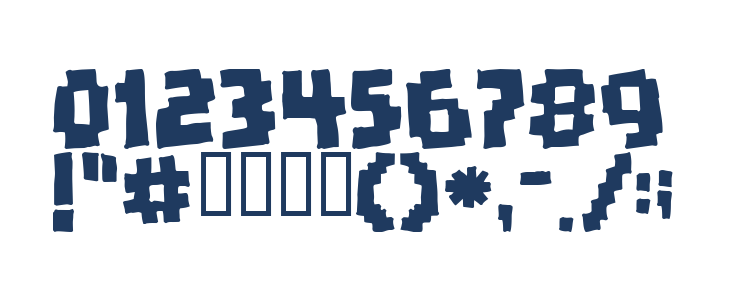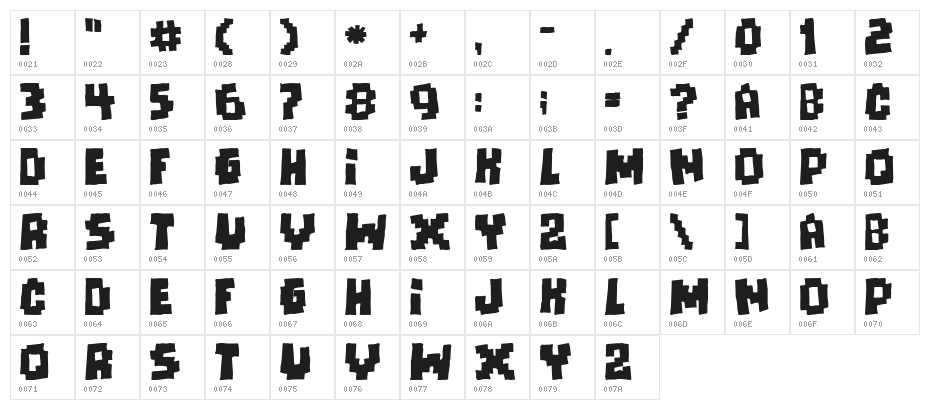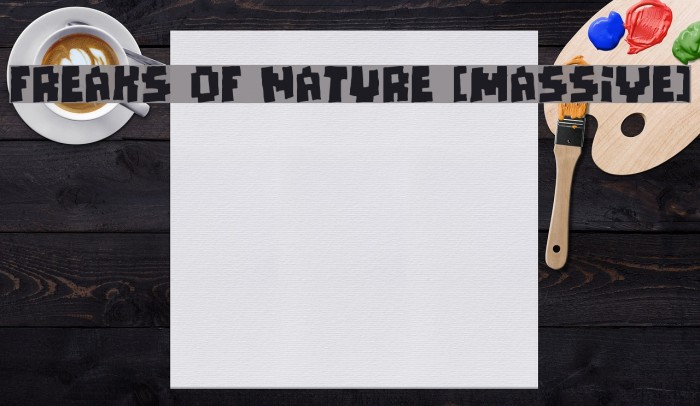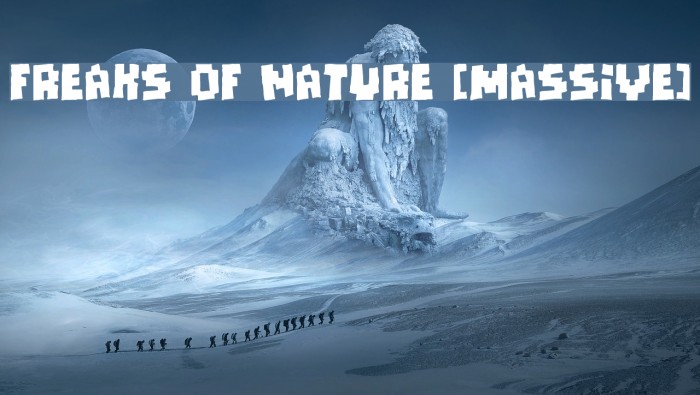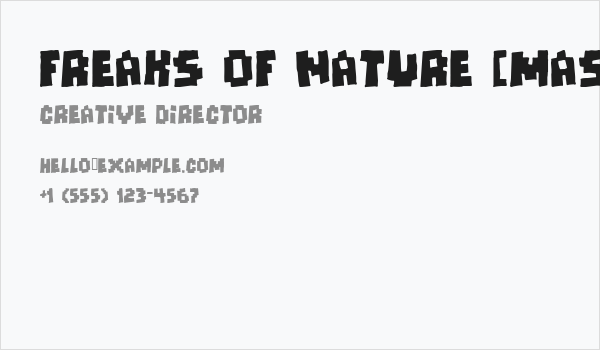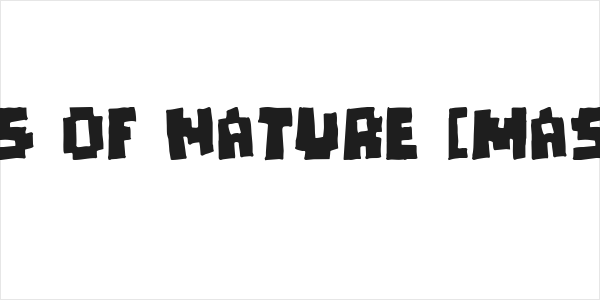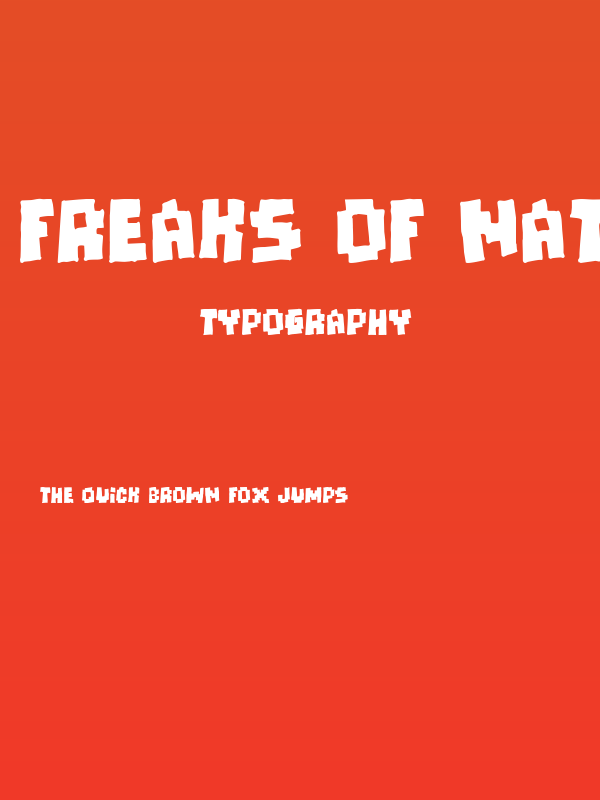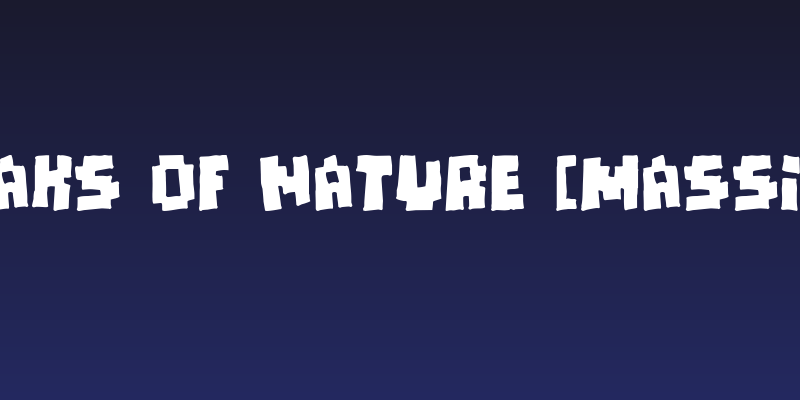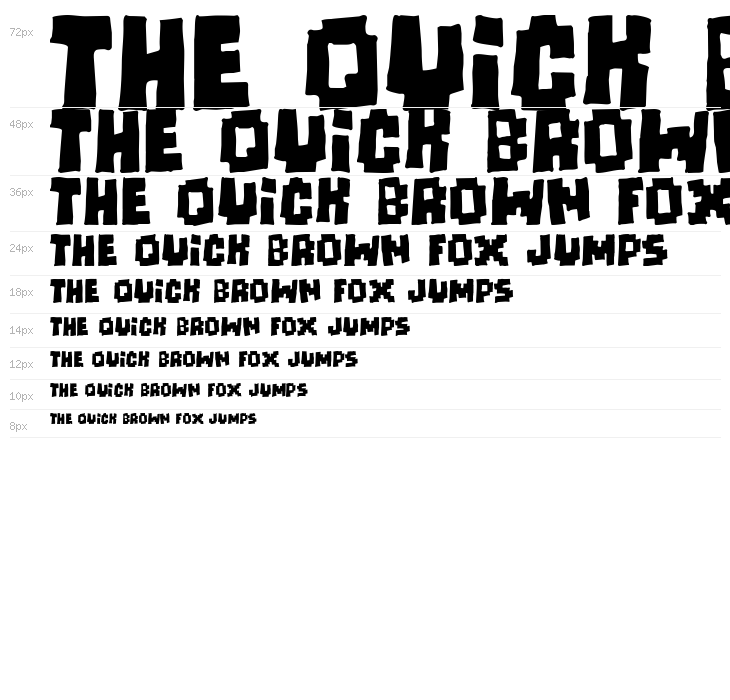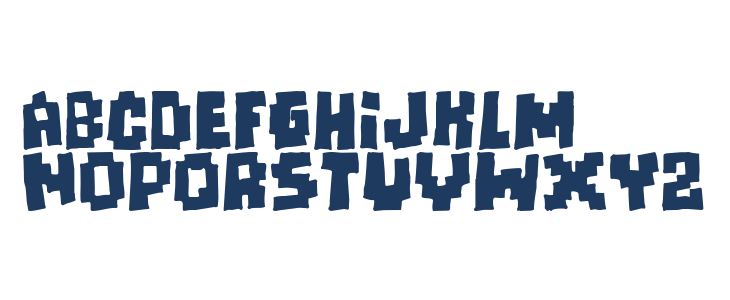
Freaks of Nature [massive] Font
Freaks of Nature [massive] Description
This font features a bold, blocky design with a rugged and irregular outline, giving it a distinctive and edgy appearance. The characters are heavily stylized with uneven edges and a chunky form, creating a sense of movement and energy. The uppercase and lowercase letters maintain a consistent height, adding to the uniformity despite the chaotic style. Numbers and special characters follow the same design principles, ensuring a cohesive look across all glyphs. This font's unique aesthetic makes it stand out, ideal for projects that require a bold and unconventional typeface.
| Overall Style | Modern, Edgy |
| Proposed Projects | Ideal for poster designs, album covers, video game graphics, and any project needing a bold, unconventional typeface. |